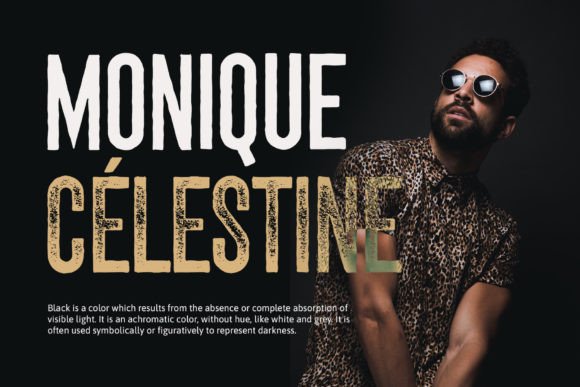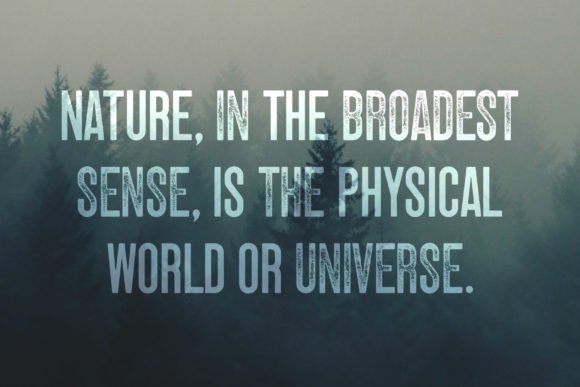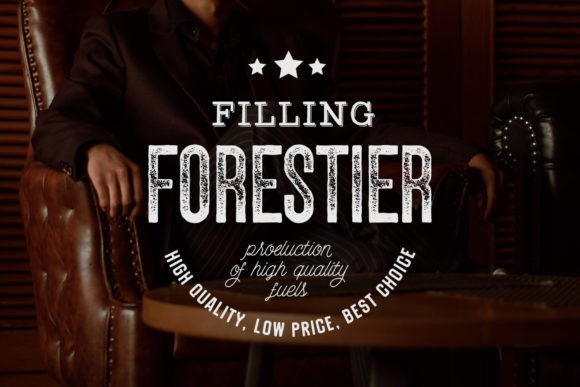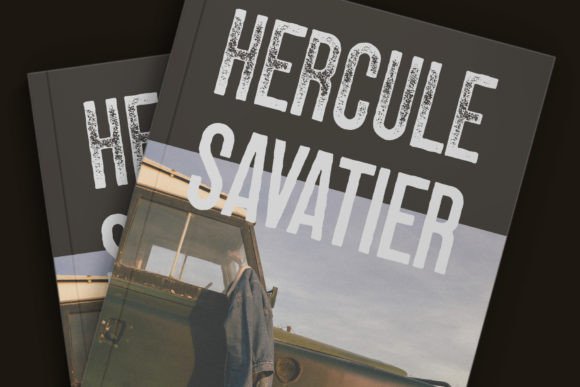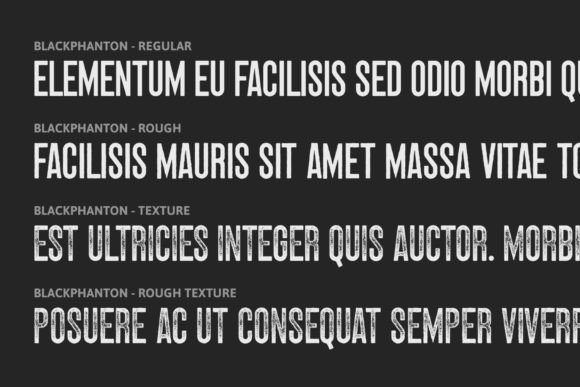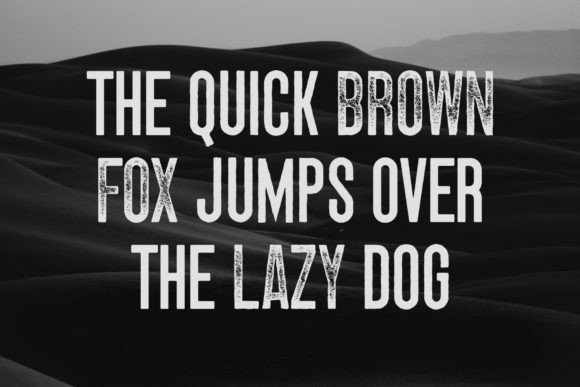
The Elusive Font: A Designer’s Quest for the Perfect Typeface
I still remember the frustration of working on a branding project, searching for the perfect font to capture the essence of the client’s vision. The struggle was real – I had scoured font libraries, but nothing seemed quite right. That’s when I stumbled upon the Black Phantom Font. Its unique blend of clean and textured styles caught my eye, and I knew I had to give it a try.
First Impressions: A Review of Black Phantom Font
- 💯 Versatility: The Black Phantom Font comes with 4 styles, including Clean and Stamp/Textured options, making it perfect for various design projects.
- 🔥 Unique Textures: The rust core texture adds a distinctive touch to any design, making it stand out from the crowd.
- 🎨 Branding and Logo Design: The font’s bold, sans-serif style makes it ideal for logos, labels, and branding projects.
- 👍 Easy to Read: Despite its bold style, the font remains surprisingly legible, even at smaller sizes.
- 🤔 Limited Language Support: The font may not support all languages, so it’s essential to check the character set before use.
- ⚠️ Texture Limitations: While the texture is a unique feature, it may not work well with certain design elements or backgrounds.
The Black Phantom Font was inspired by the world of industrial design and street art. The font’s creator aimed to capture the essence of urban landscapes and the rebellious spirit of street artists. The result is a unique blend of clean lines and textured elements, perfect for adding an edgy touch to designs.
| Font Name | Black Phantom Font |
| Author | salamahtype |
| What is the Black Phantom Font suitable for? | The Black Phantom Font is perfect for branding projects, logos, labels, and more, thanks to its versatile styles and unique textures. |
| Is the Black Phantom Font available in multiple languages? | The font’s language support may be limited, so it’s essential to check the character set before use. |